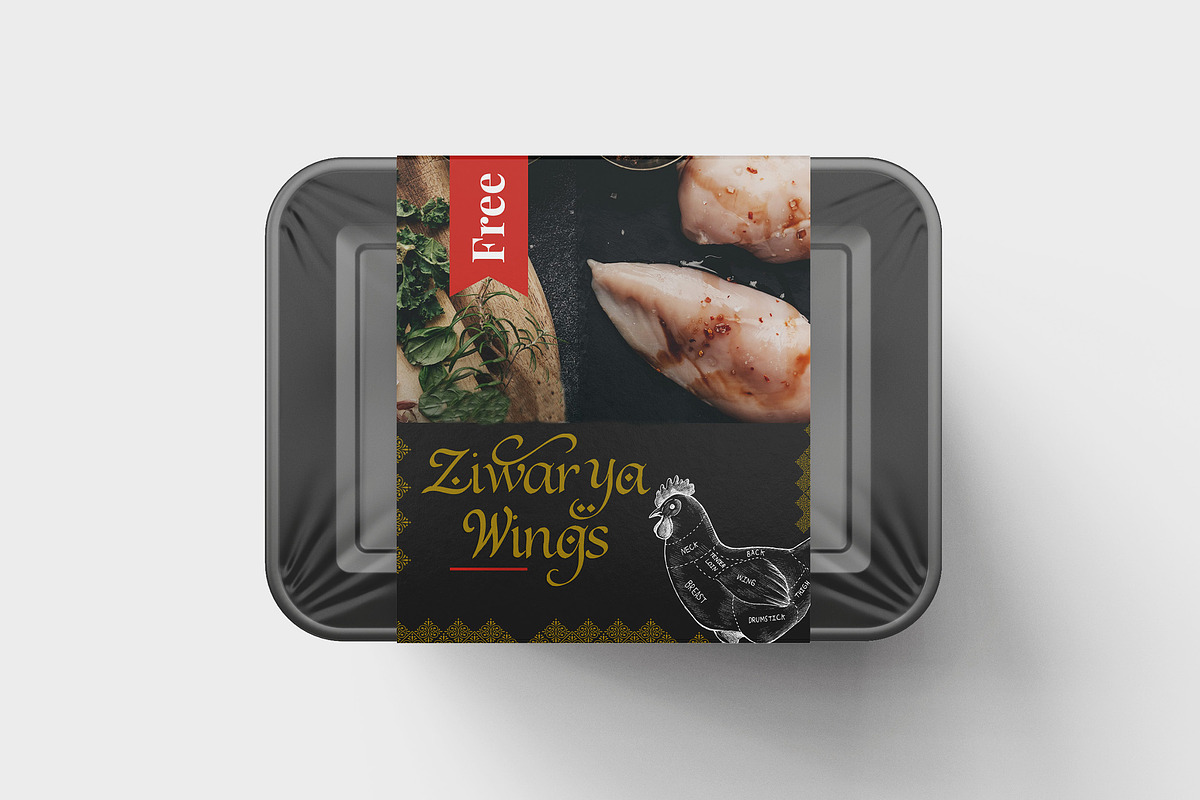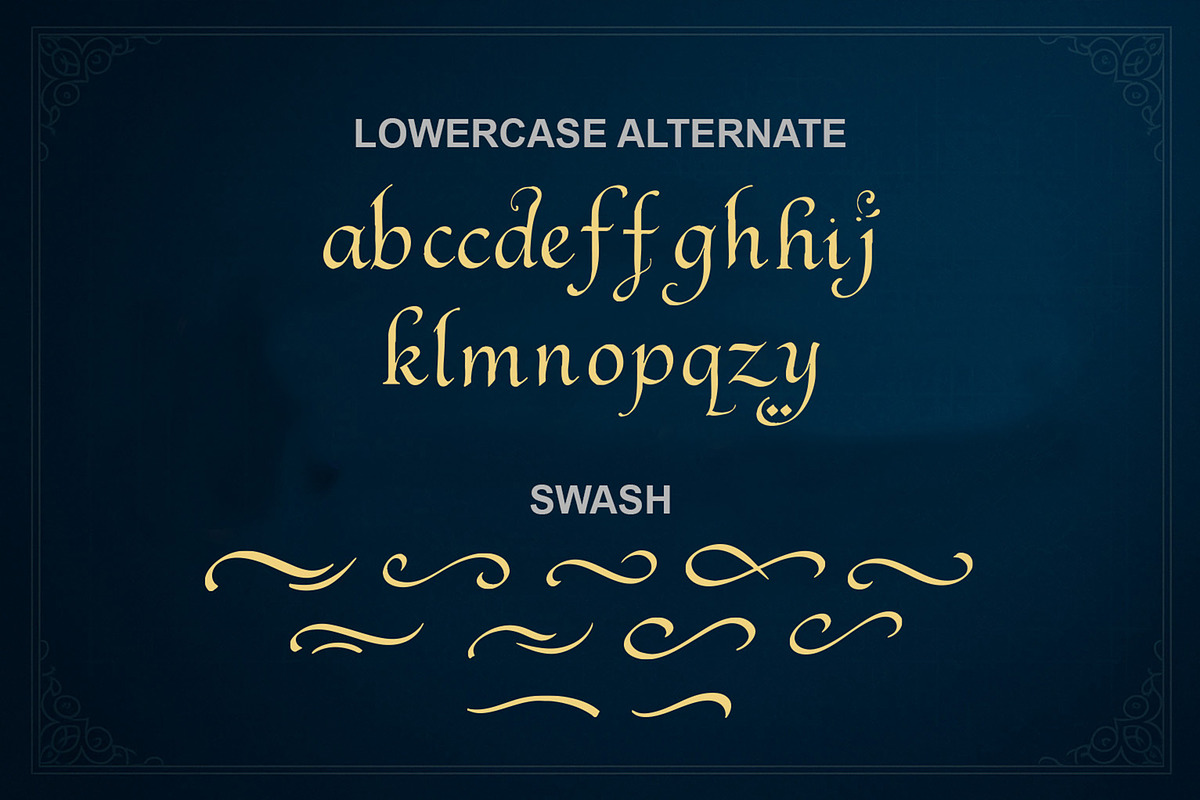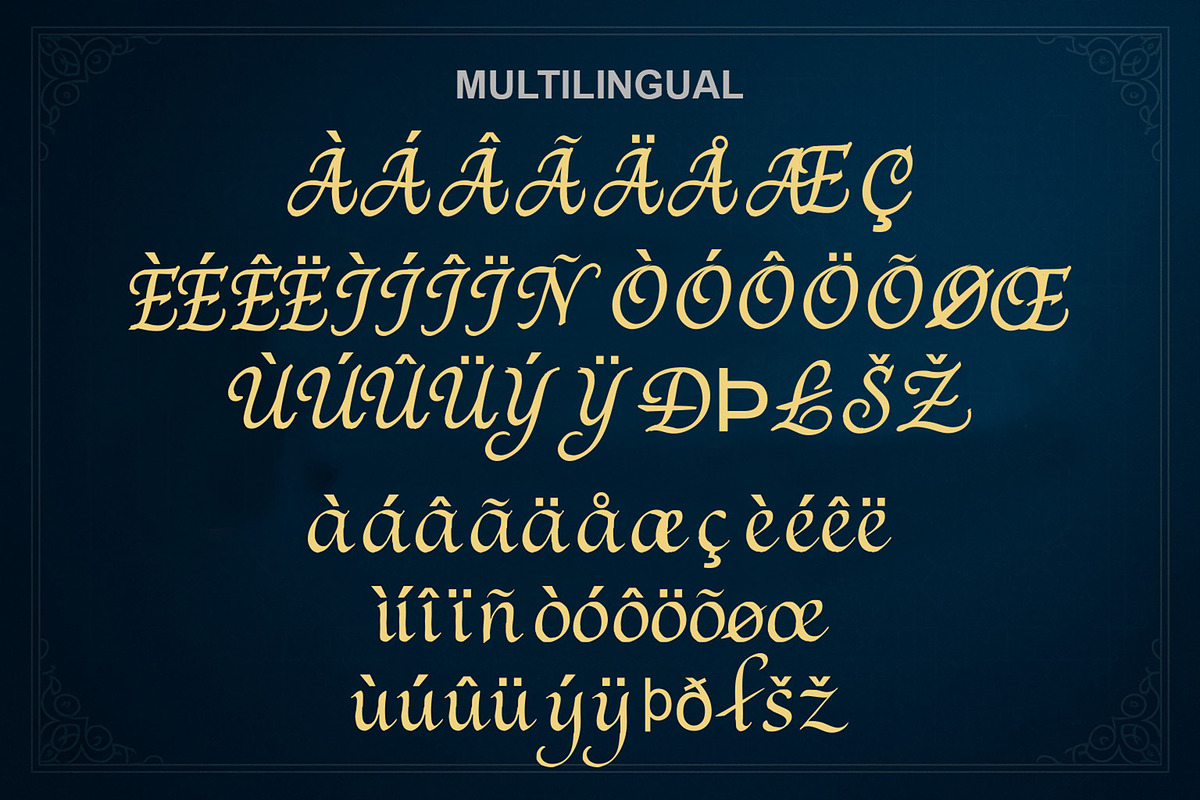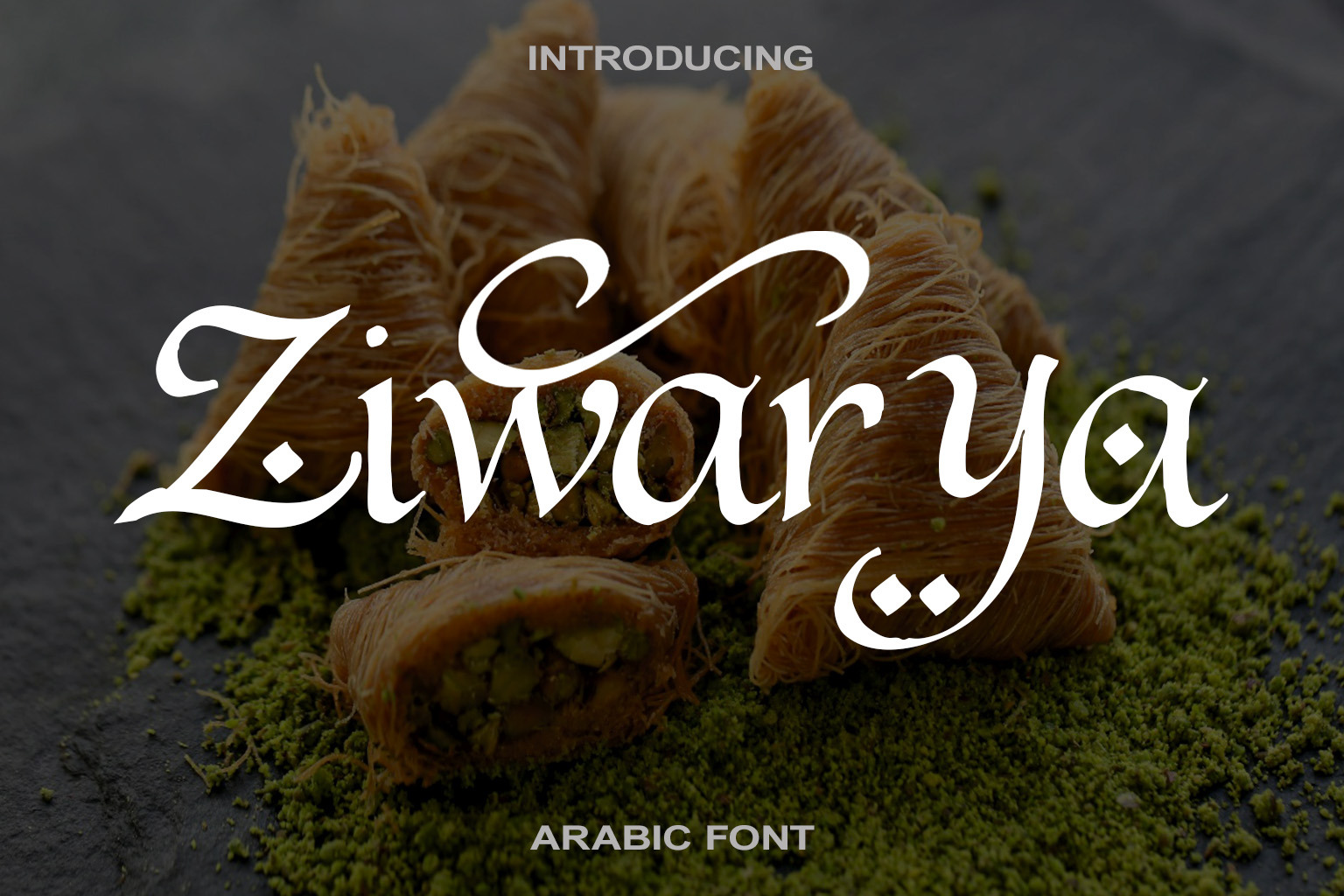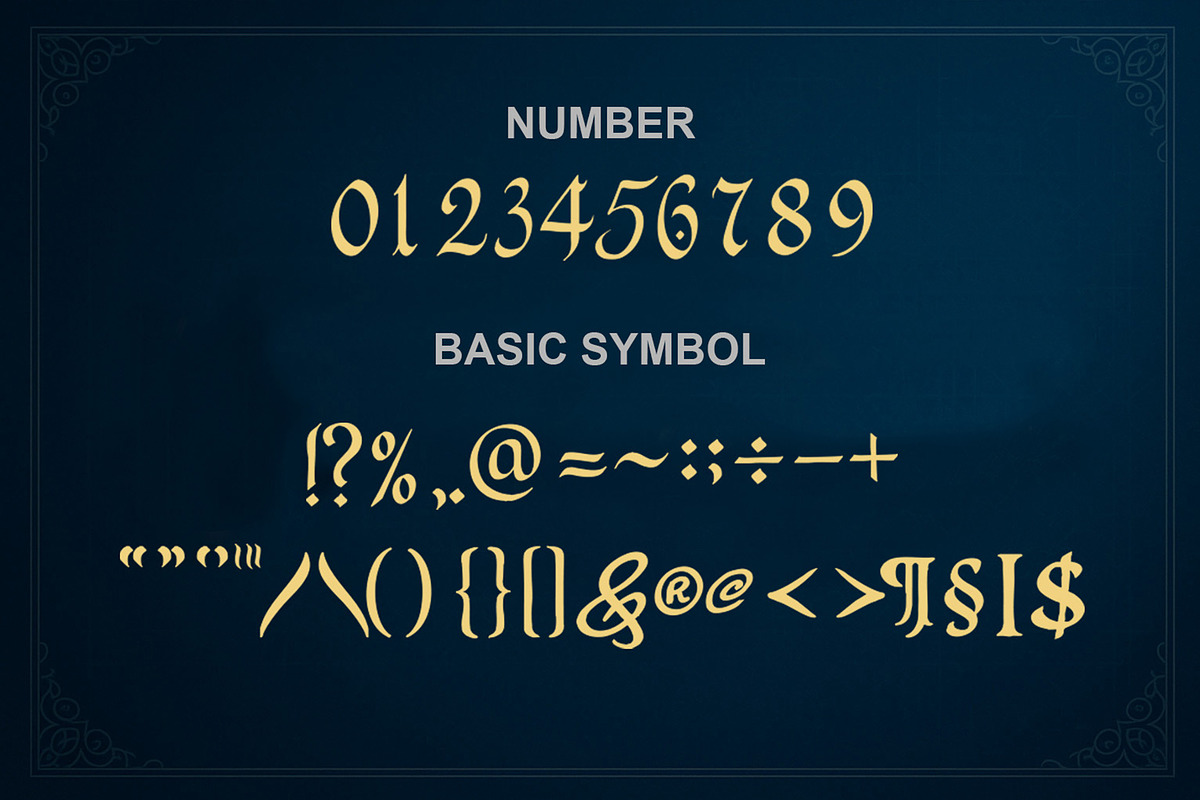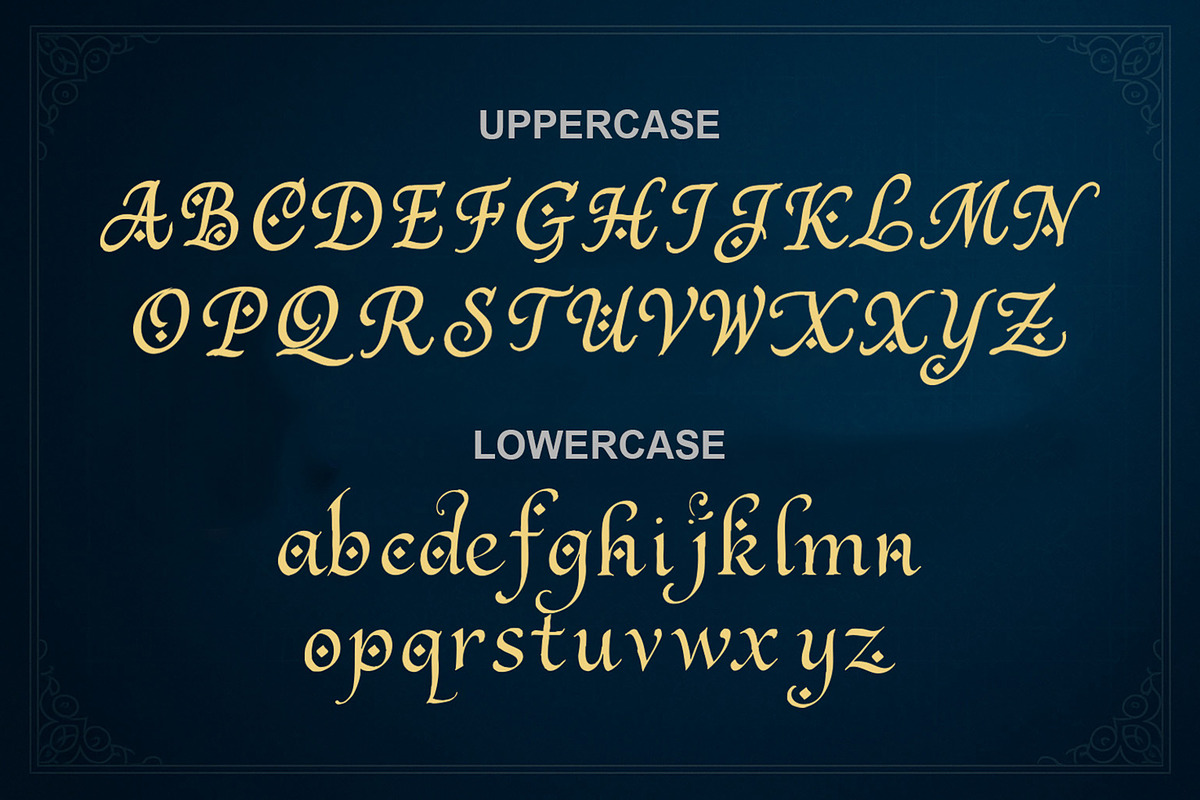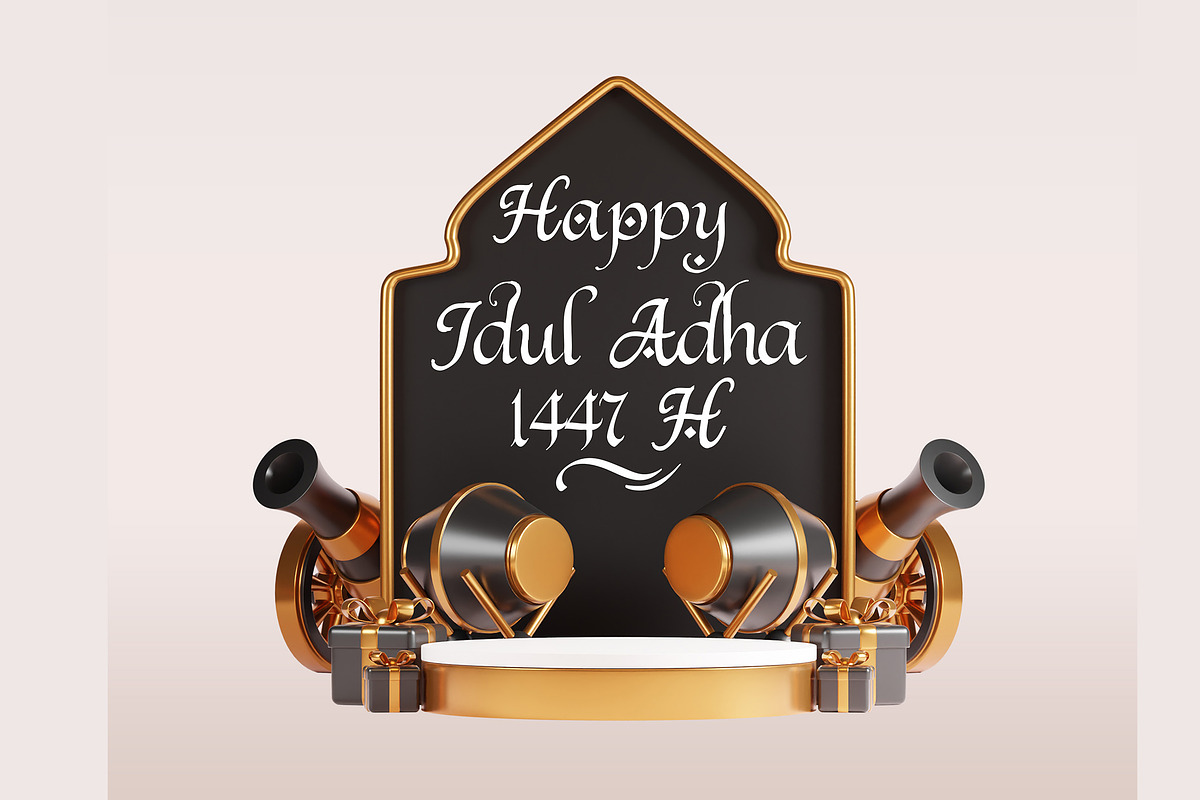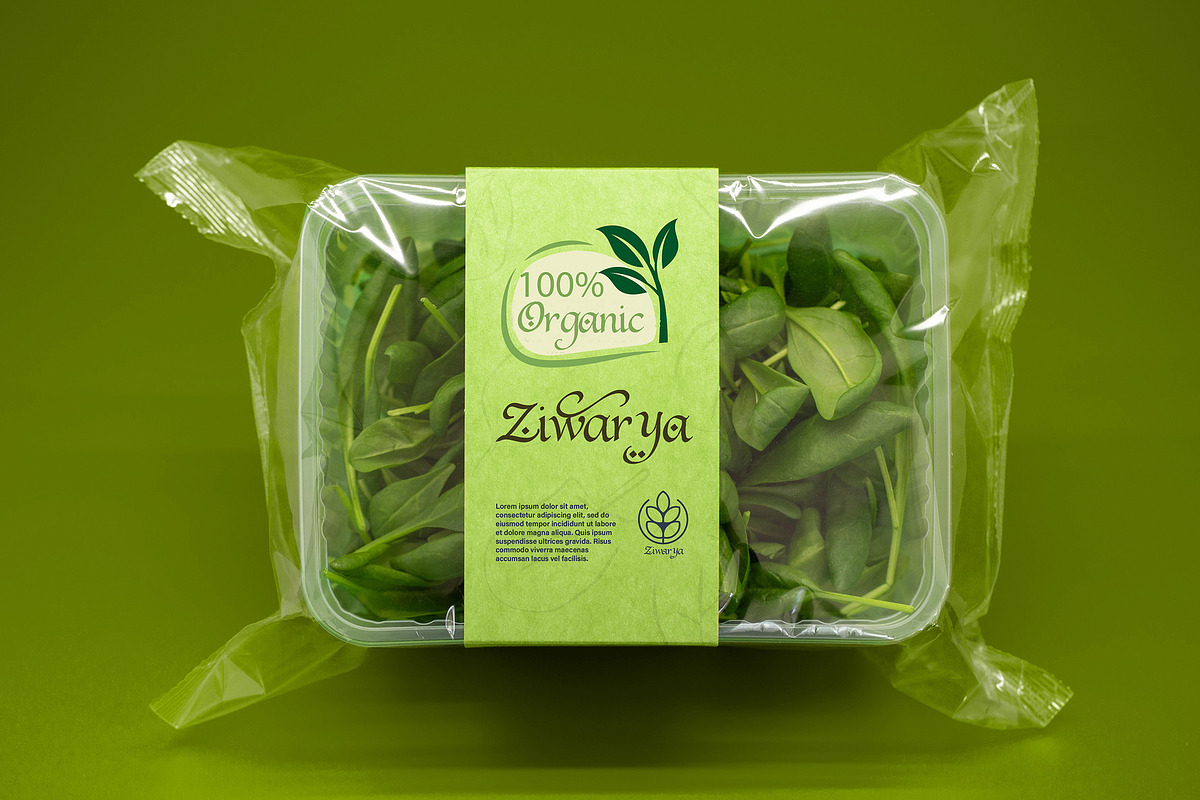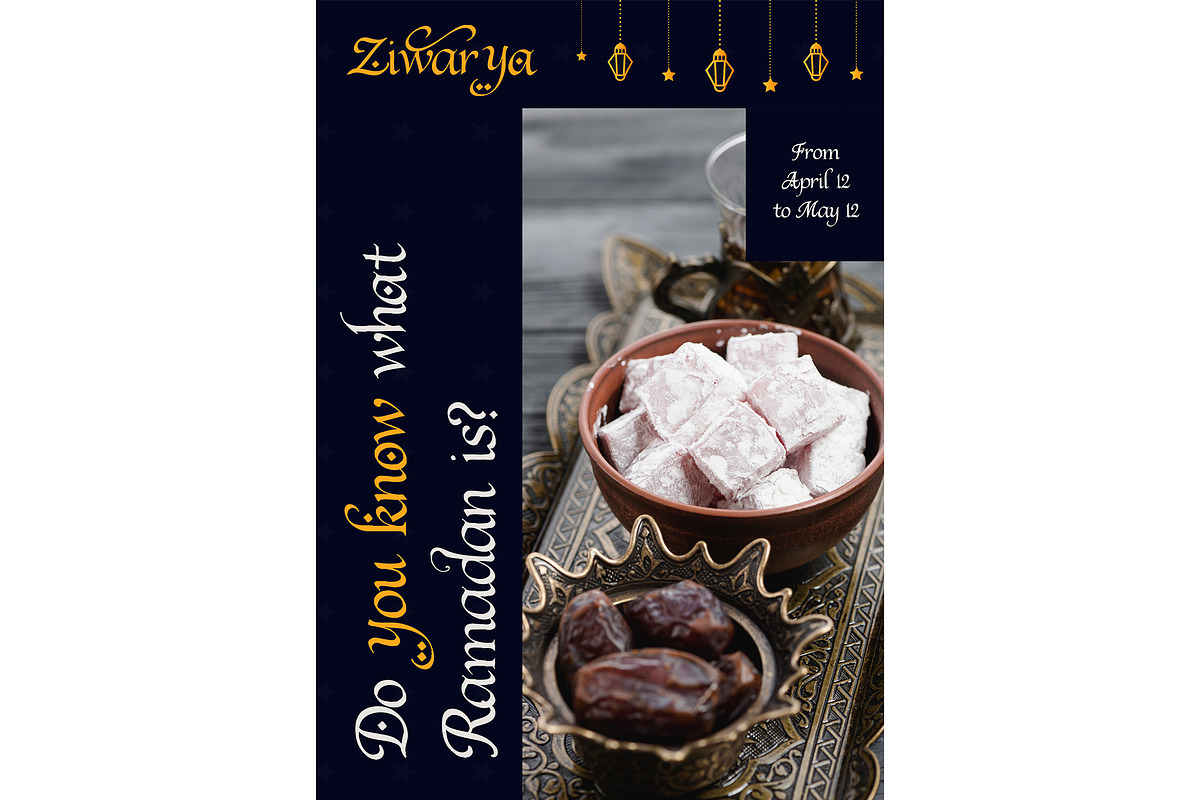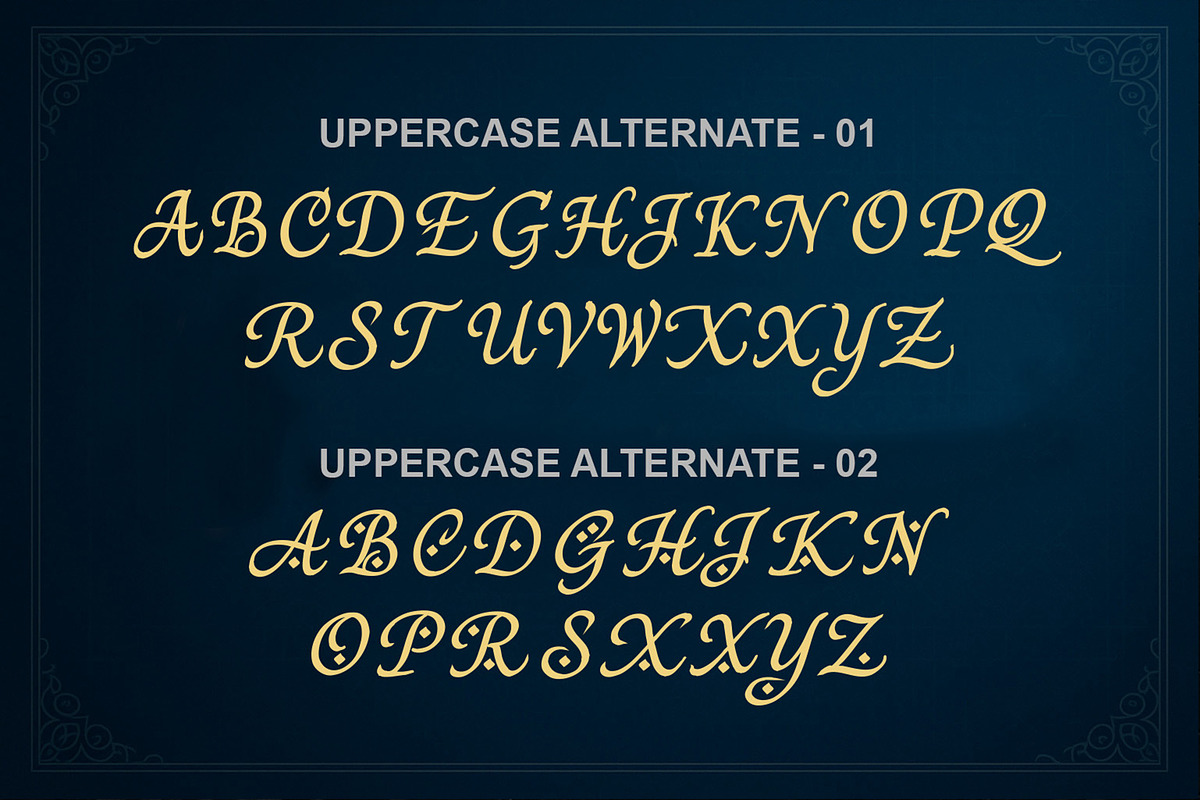
Ziwarya Arabic Font
Ziwarya is a bold fusion of Arabic elegance and modern Latin style—perfect for branding that seeks sophistication with cultural depth. This unique typeface turns every word into a statement of beauty.
- 240 Glyps included Uppercase, Lowercase, Numeral, Punctuation, Multilingual international Language, swash and ornament art